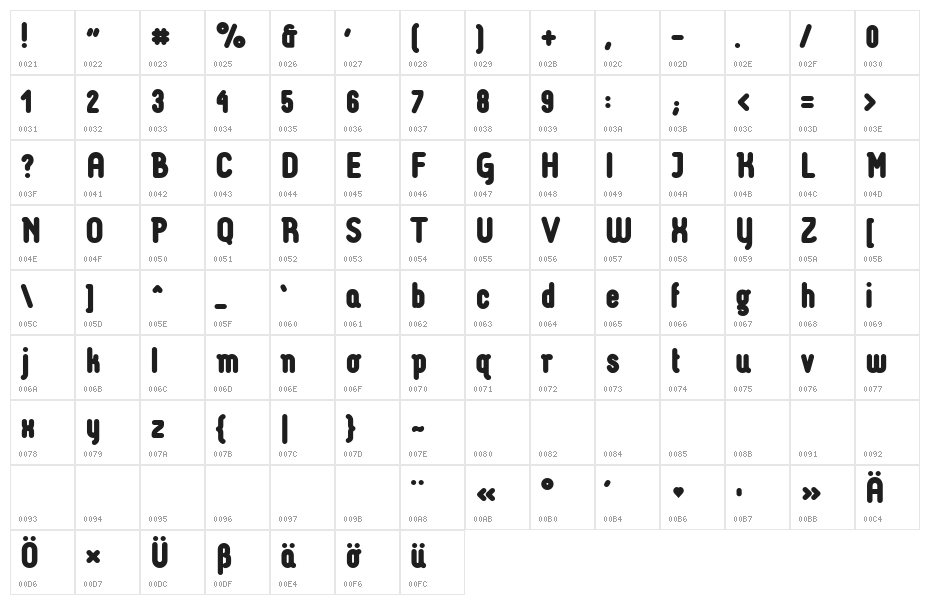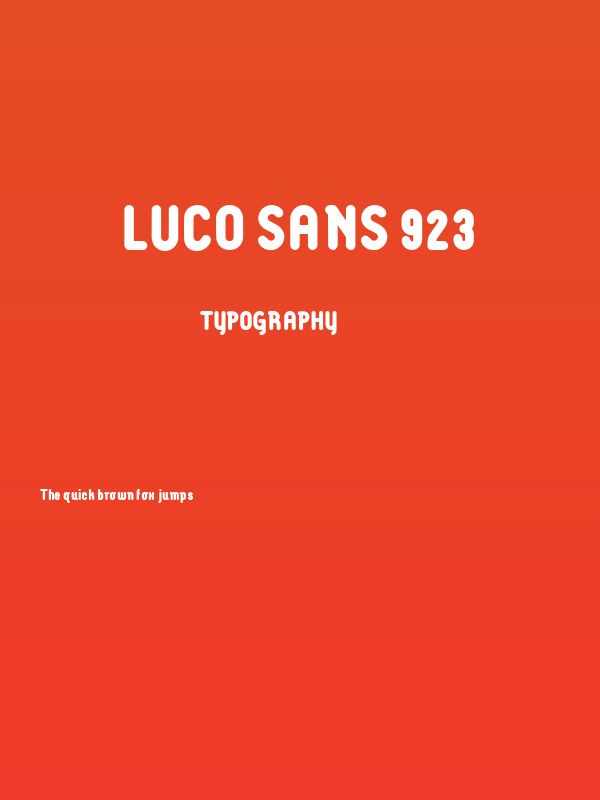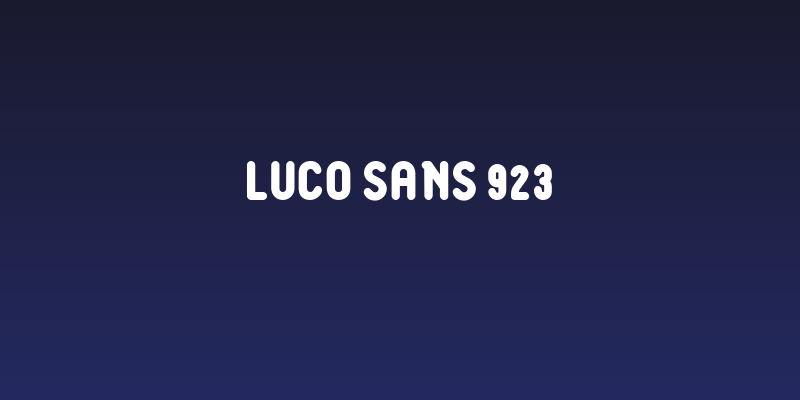
Luco Sans 923 Font
Luco Sans 923 Description
This font features a bold and rounded sans-serif style, characterized by its thick strokes and smooth curves. The letters are uniformly wide, giving it a strong and cohesive appearance. The rounded edges soften the overall look, making it approachable and friendly. The numbers and special characters maintain the same boldness and rounded style, ensuring consistency across all characters. This font is highly legible and stands out due to its substantial weight and clear forms.
| Proposed Projects | Ideal for branding, signage, posters, and any project requiring a bold, friendly typeface. |